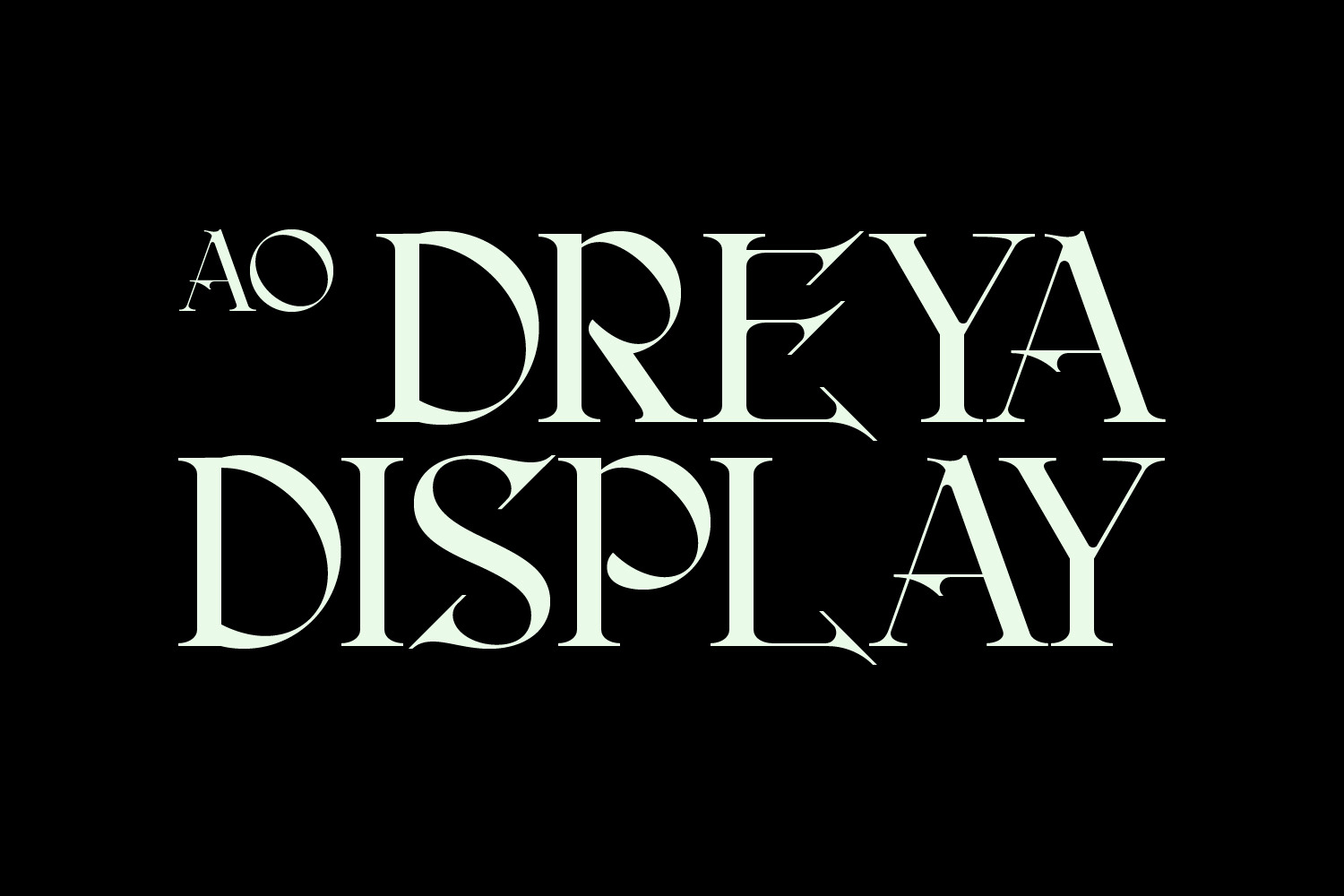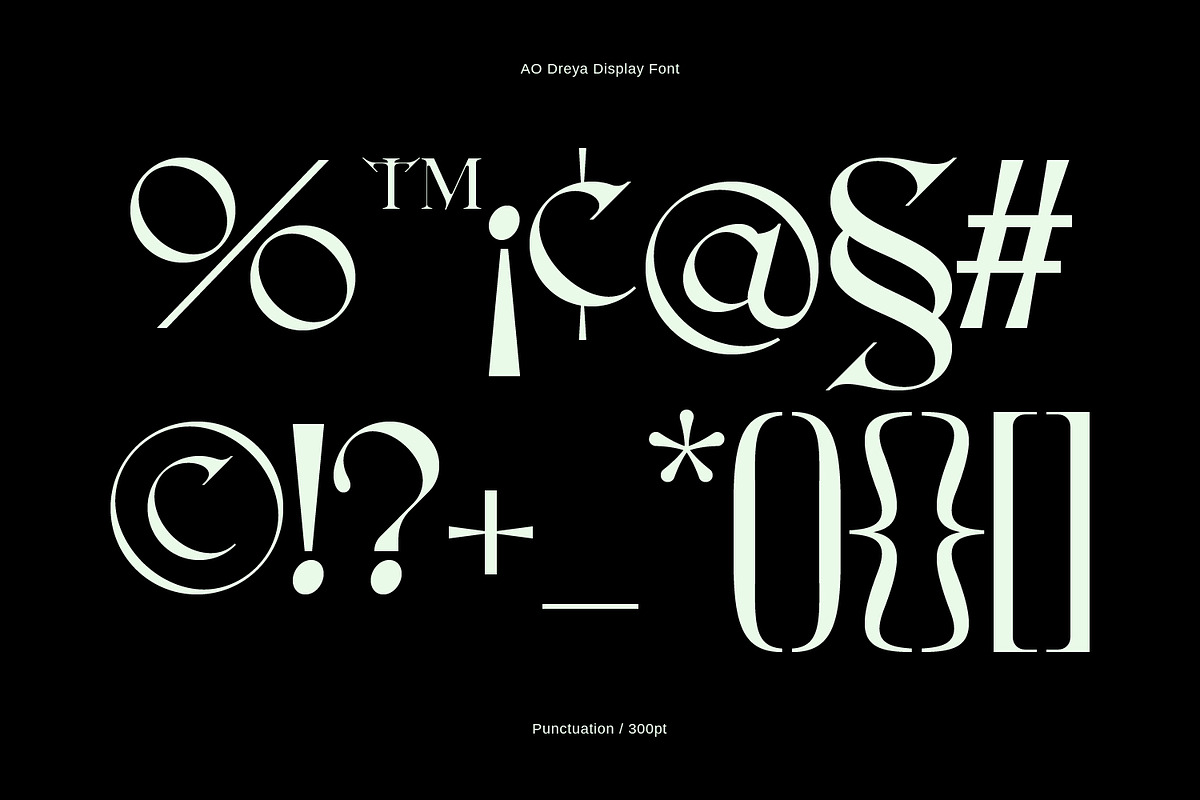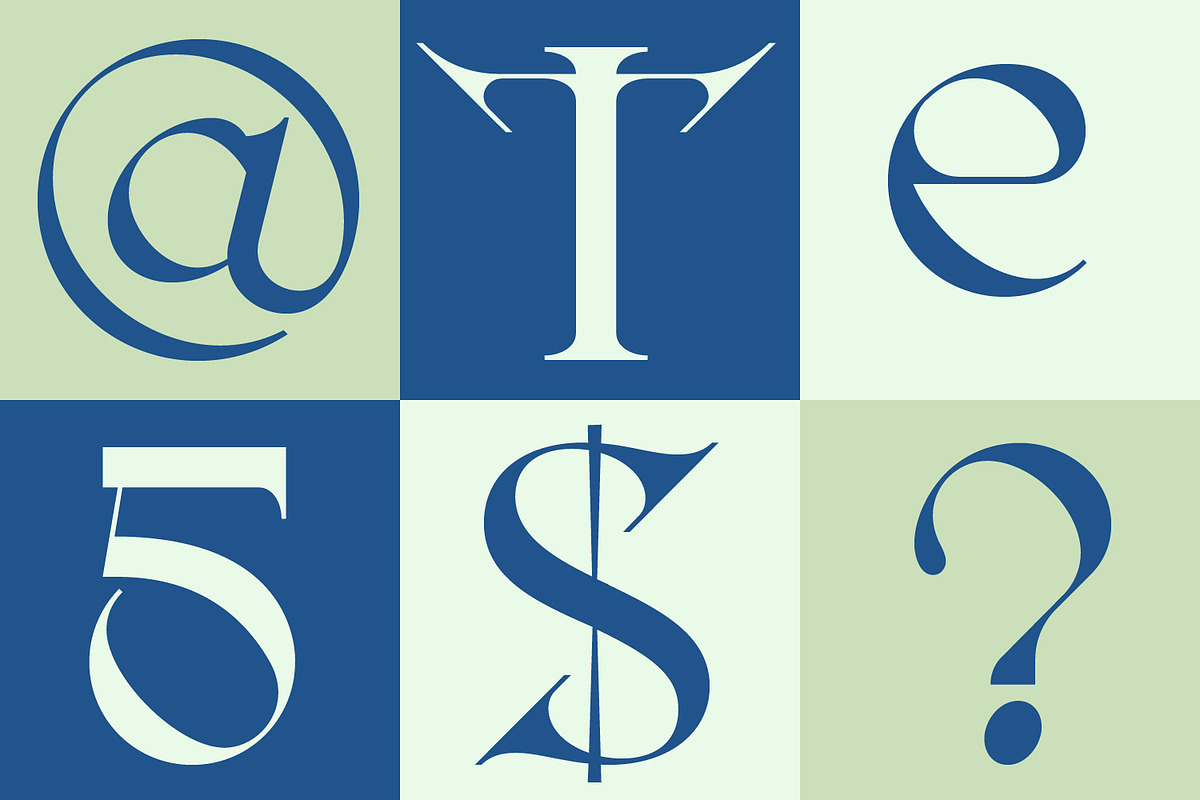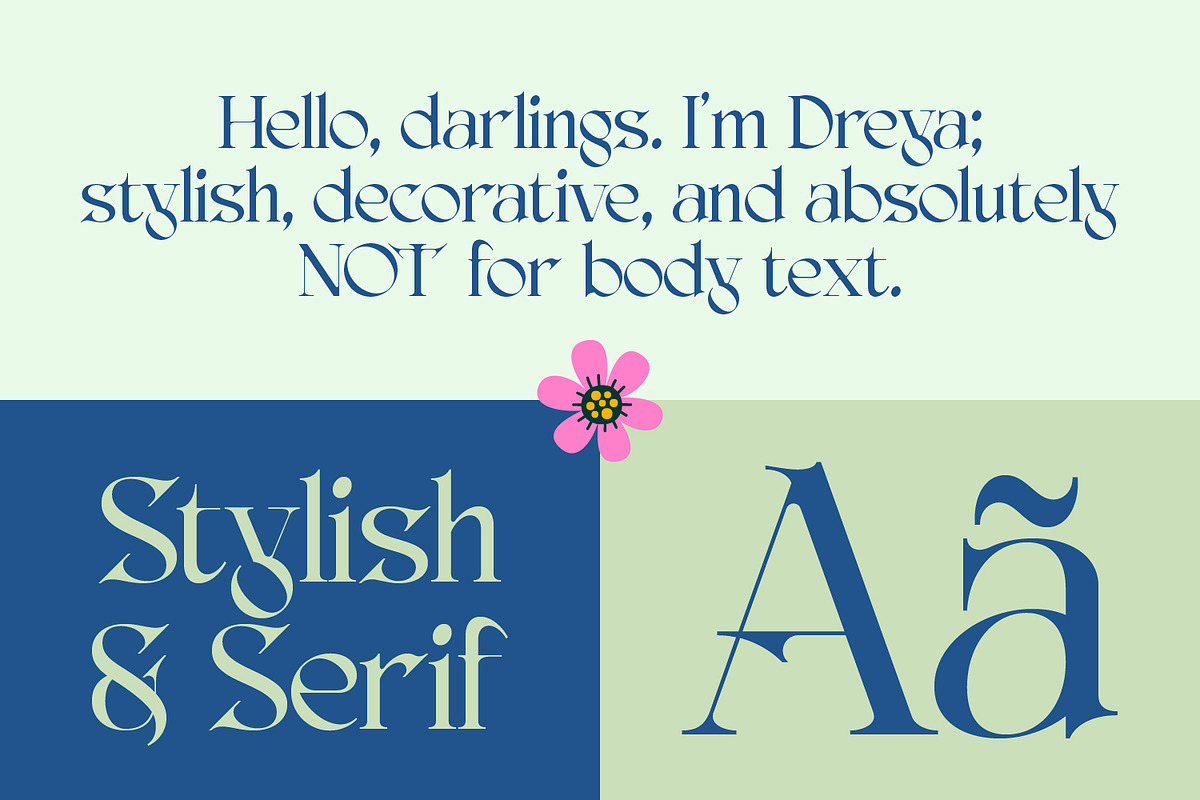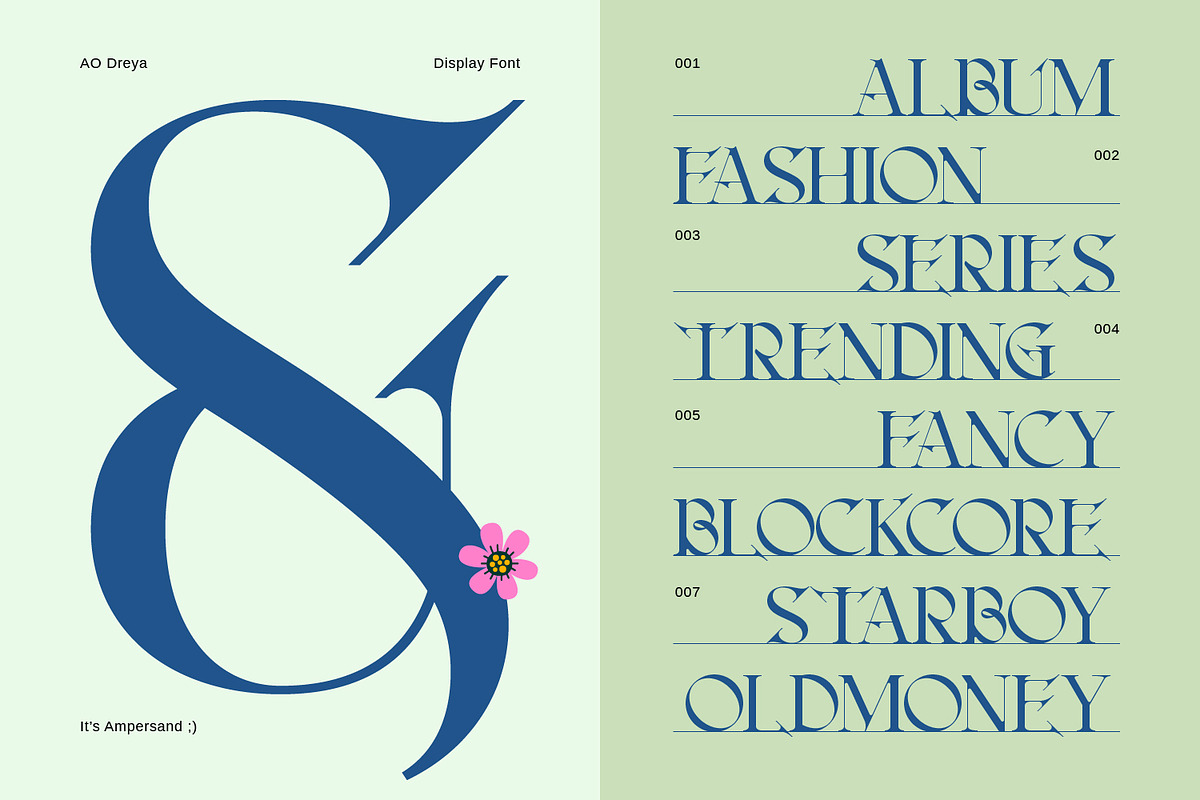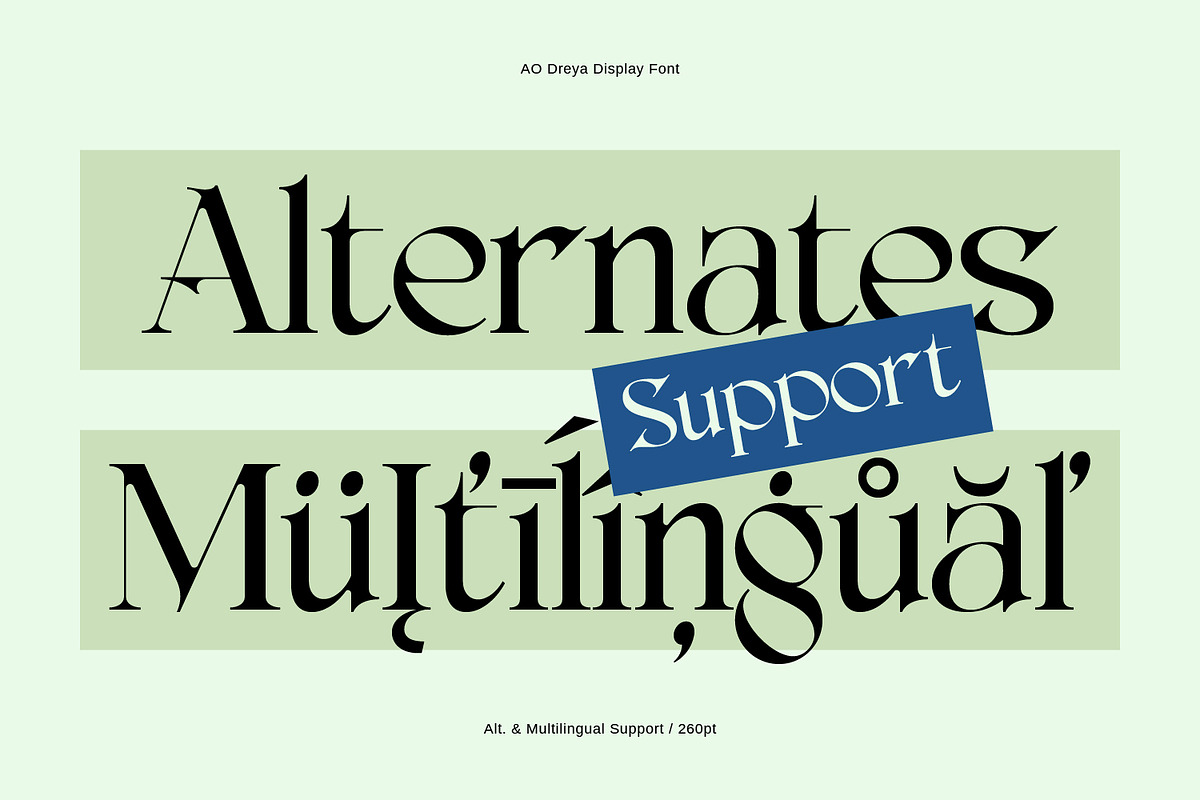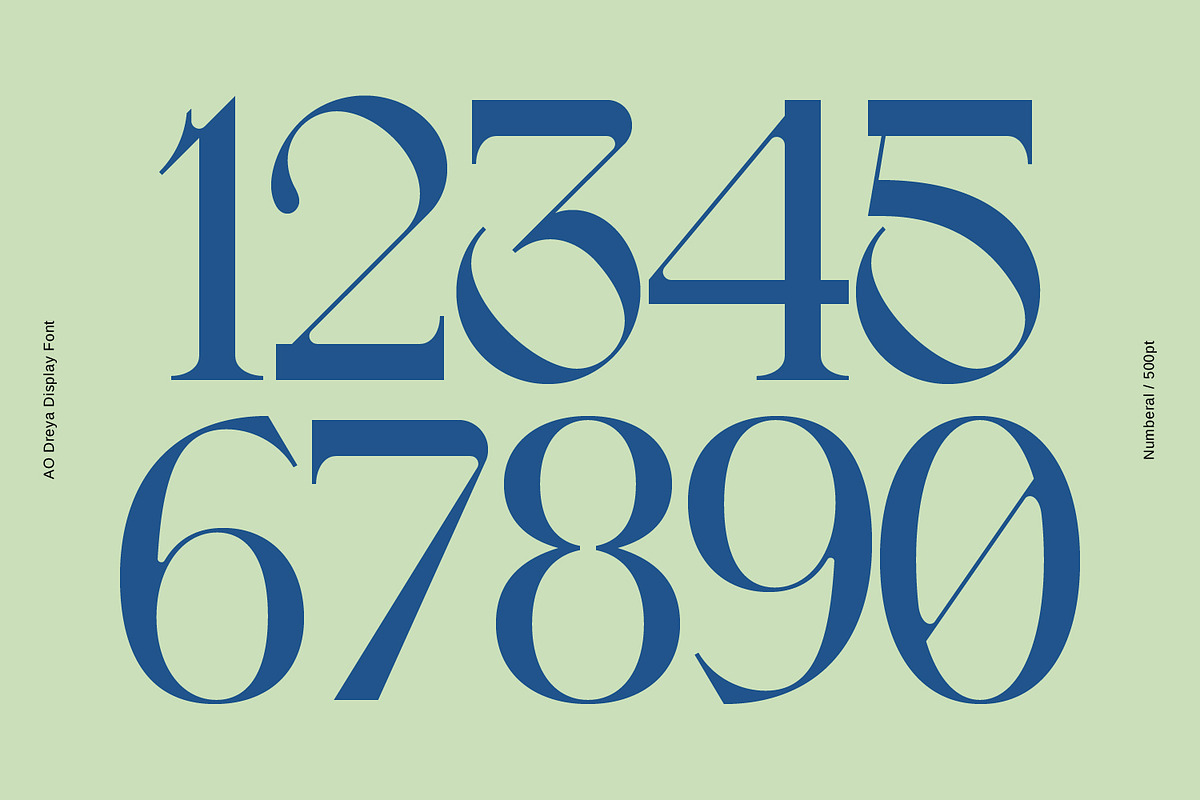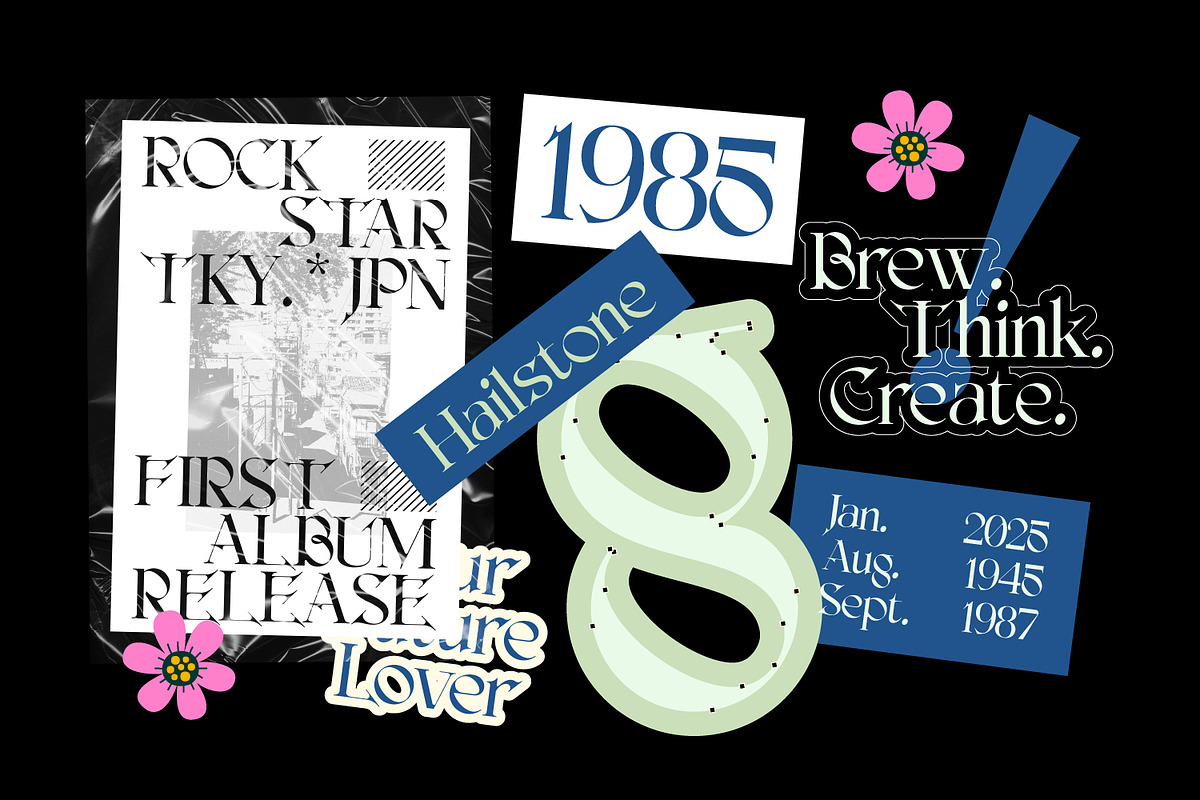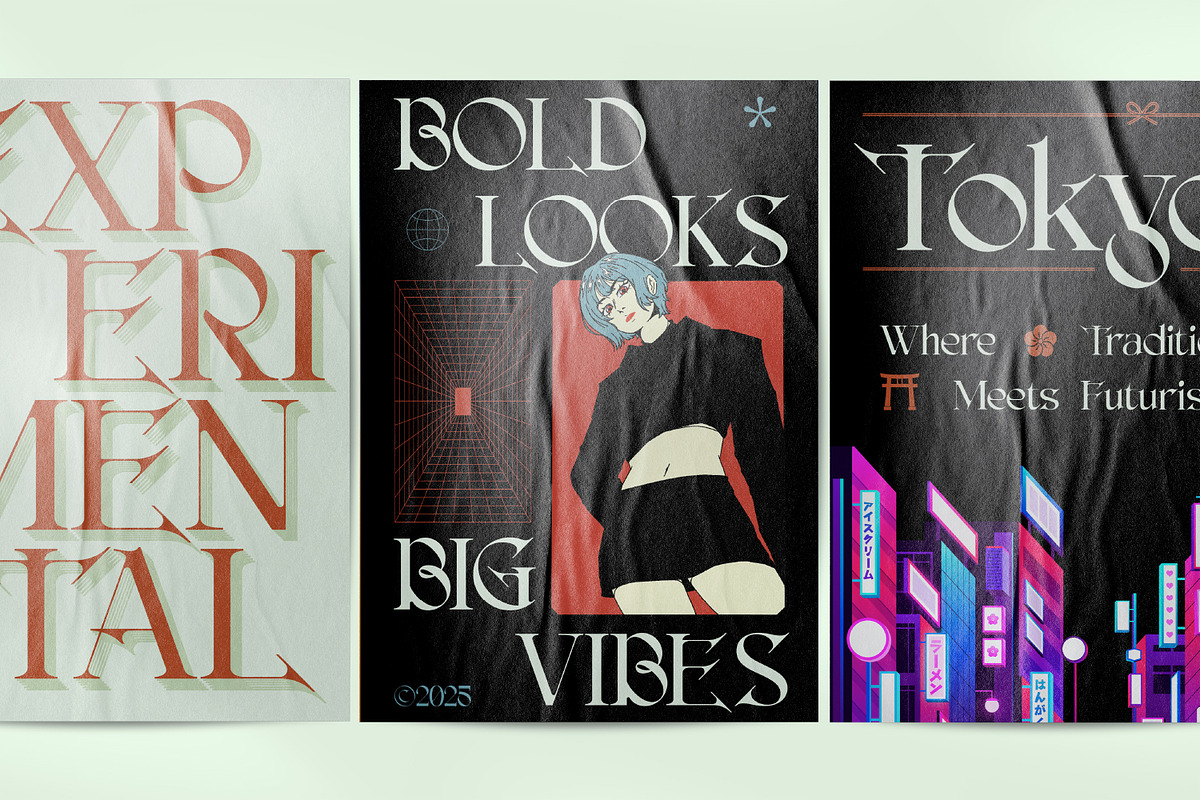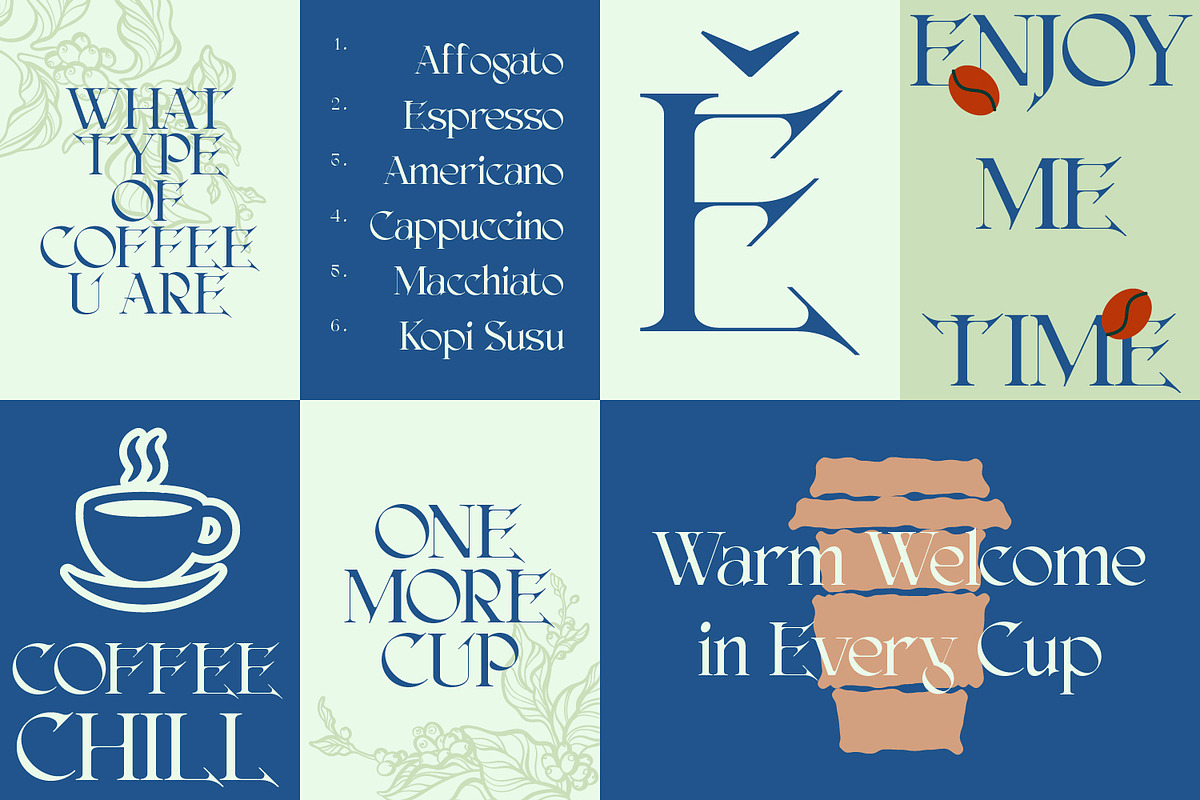
AO Dreya - Stylish Serif Font
AO Dreya Display is a stylish serif font with a modern twist. It features sharp edges, smooth curves, and just the right amount of contrast to make your designs stand out.
Perfect for logos, titles, posters, or anything that needs a bold and elegant touch. AO Dreya brings a classy yet fresh vibe to your work—clean, confident, and easy to use.